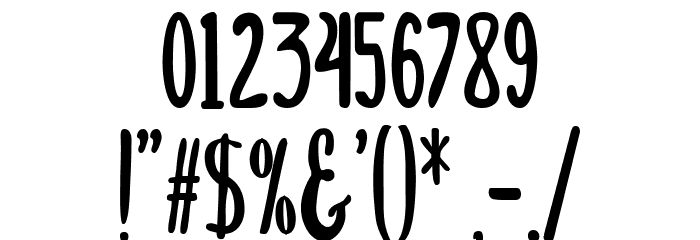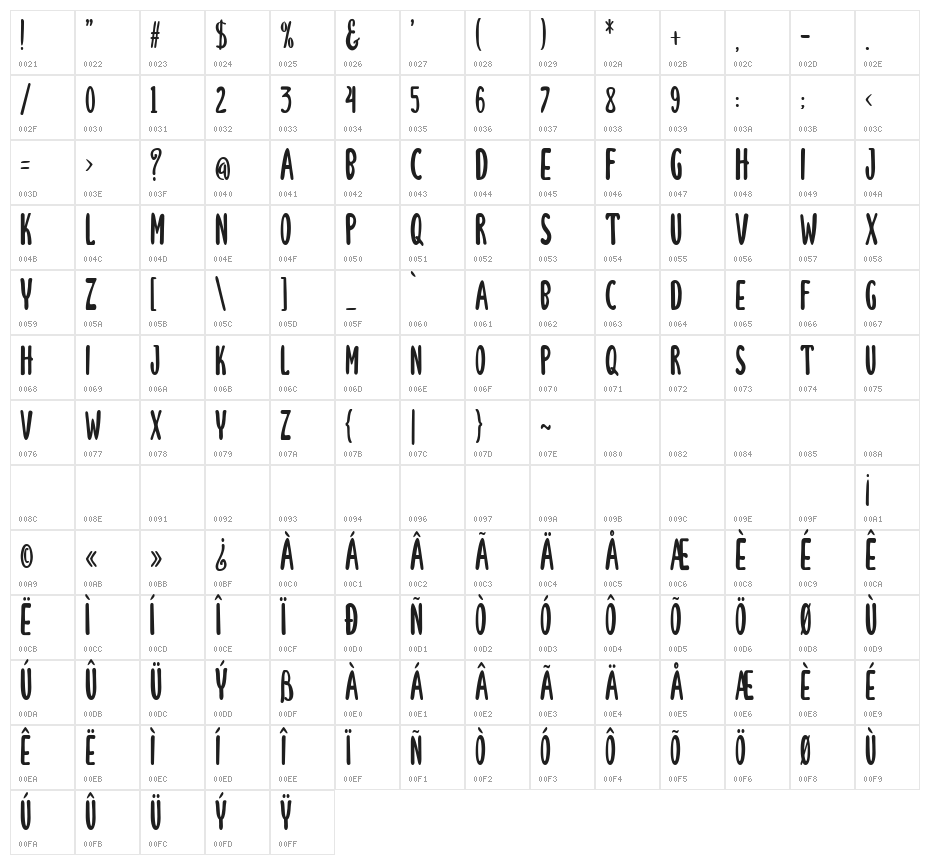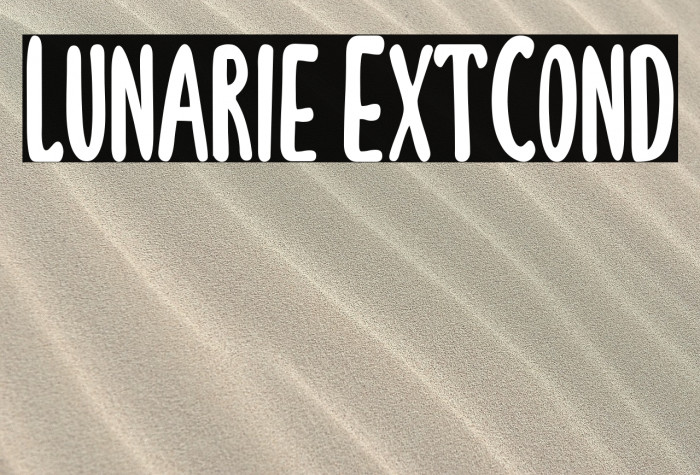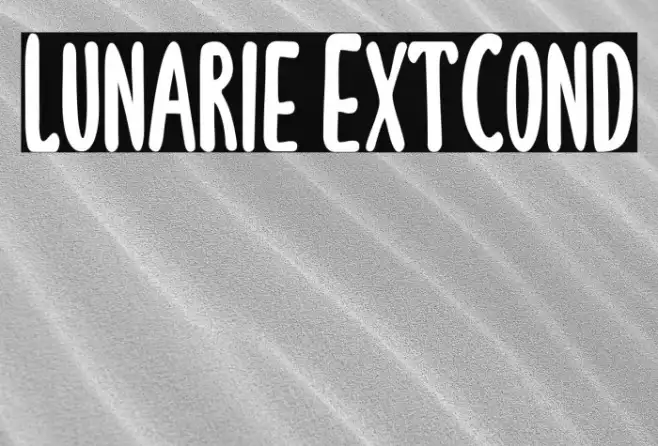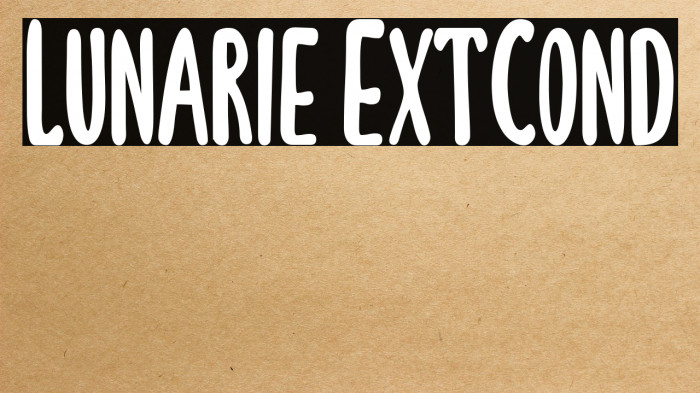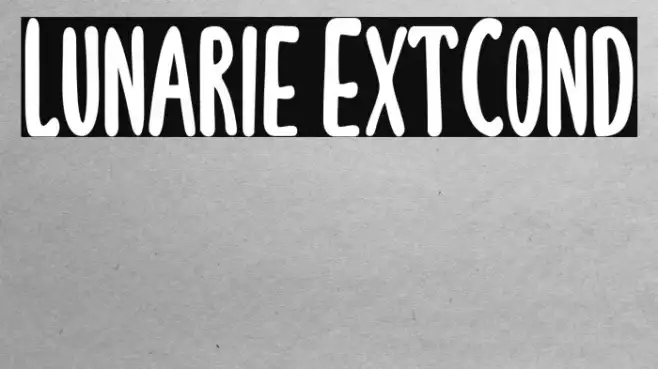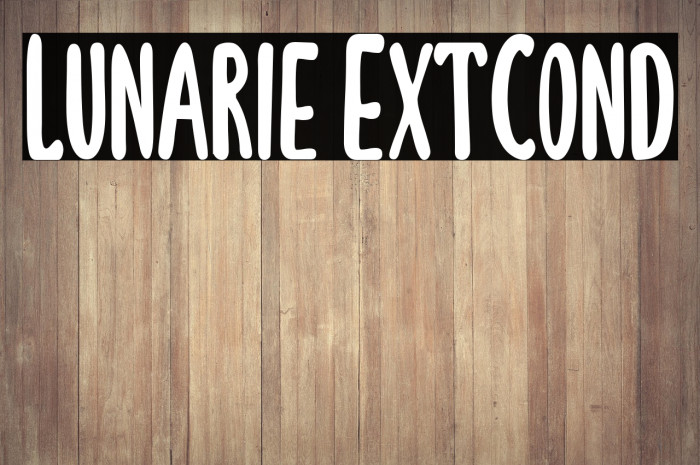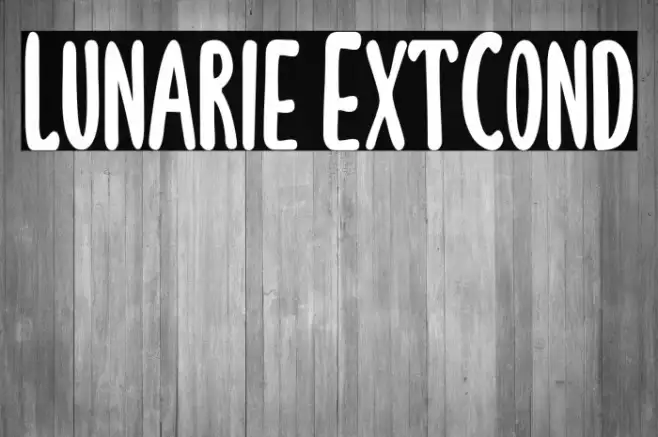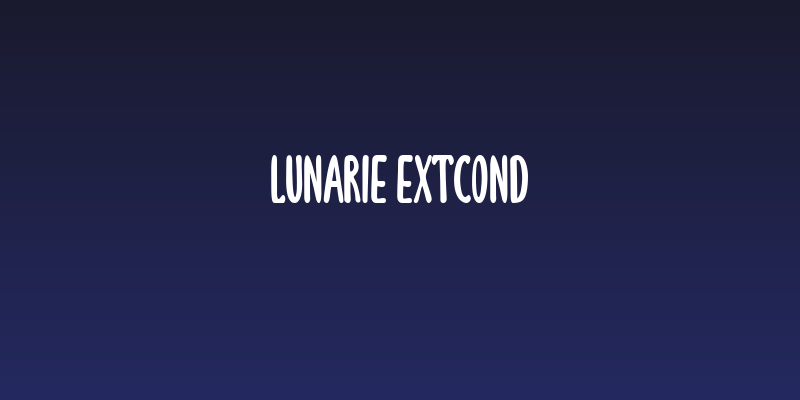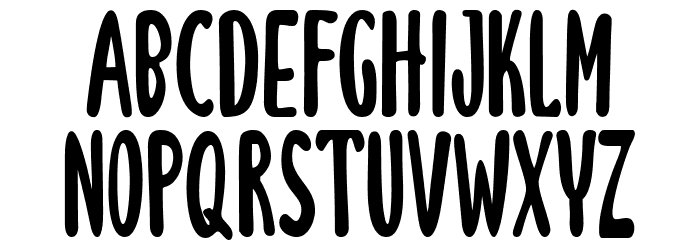
Lunarie ExtCond Font
Lunarie ExtCond Description
This font features a bold and playful design with a handwritten style. The characters are tall and slightly condensed, giving a unique and energetic appearance. The strokes are smooth and rounded, contributing to a friendly and approachable look. The uppercase and lowercase letters maintain a consistent style, with the lowercase being slightly smaller in height. Numbers and special characters are well-integrated, maintaining the overall aesthetic. This font is suitable for projects that require a fun and informal touch, such as children's books, posters, or creative branding.
| Proposed Projects | Ideal for children's books, posters, creative branding, and informal designs. |